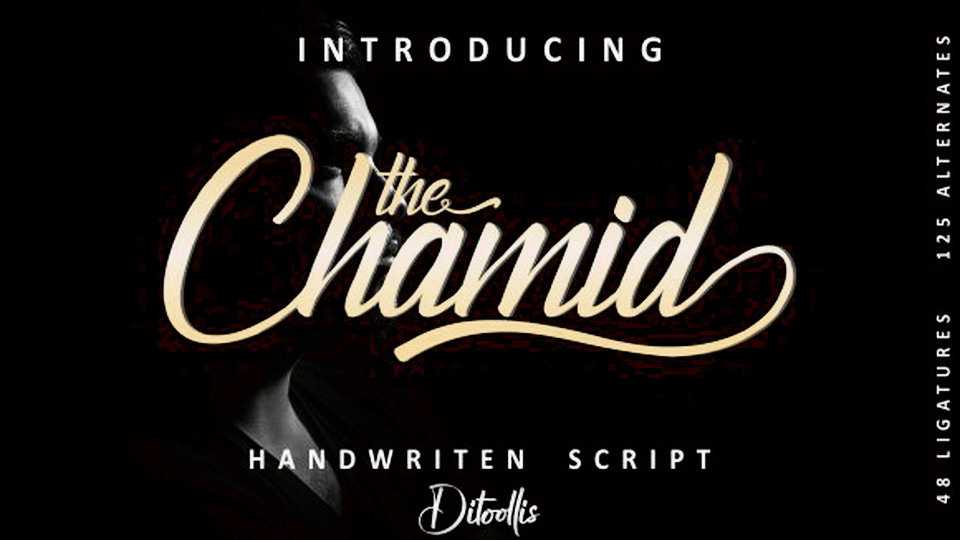
Download The Chamid font – a beautiful modern handwritten script. It comes with full set of glyphs, including 48 ligatures and 125 alternates to create unique design.
Designer: Ditoollis Project